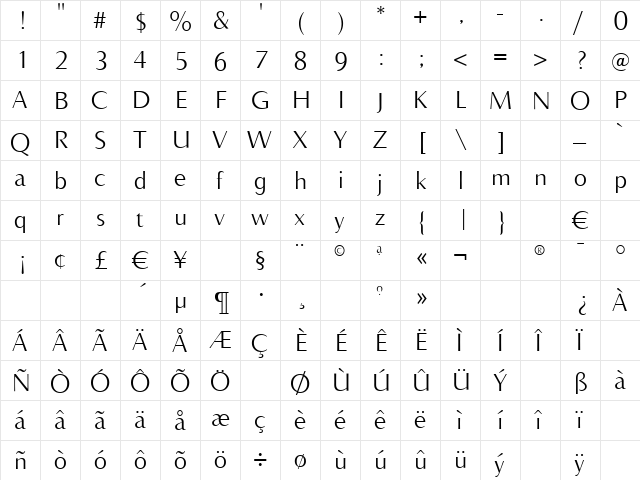
AccentGraphicLight Regular
Design Context for AccentGraphicLight Typeface
AccentGraphicLight takes a measured approach to typography — its balanced proportions and neutral character make it a reliable workhorse for both digital and print work. The delicate stroke weight brings airiness and refinement to layouts.